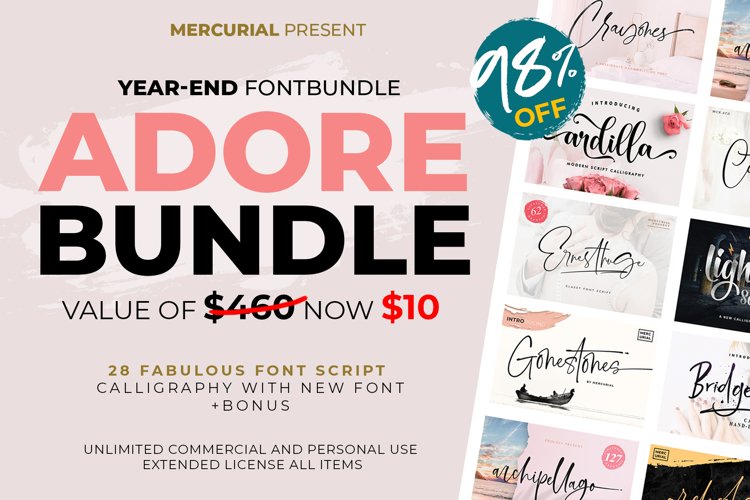
The use of this fonts is great for Logotype, Letterhead, Poster, Apparel Design, labels, greeting cards, branding materials, business cards, quotes, posters, and many more!